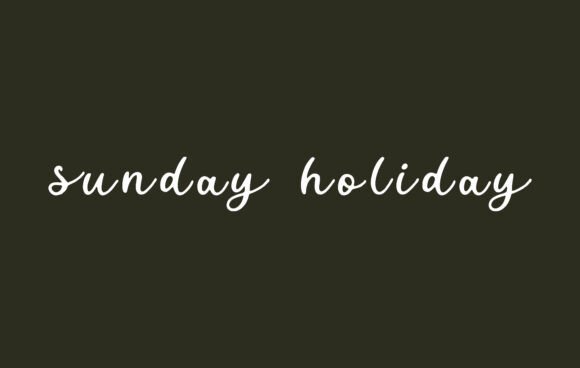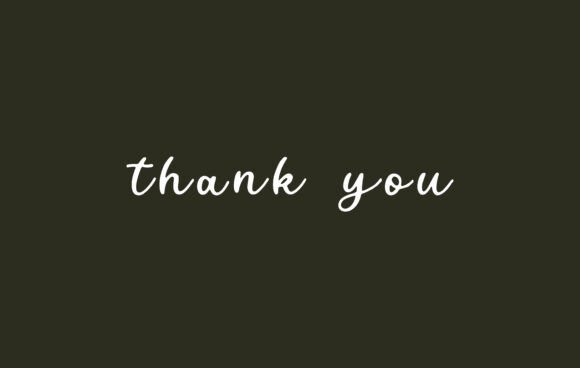
Introduction to Oysters Rockefeller Font
Have you ever stared at a blank page, feeling like your creative project is missing that special something? You’ve tried different combinations of colors, shapes, and fonts, but nothing seems to capture the essence of your vision. This is where the Oysters Rockefeller Font comes in – a game-changing addition to any design resource that’s sure to elevate your work.
Expertly crafted with a romantic touch, this authentic handwritten font is a true favorite among designers. Its legibility makes it perfect for both title and body text, ensuring that your message shines through with clarity and style. Whether you’re working on a magazine headline, social media campaign, or wedding invitation, the Oysters Rockefeller Font is the perfect choice for adding a touch of sophistication and elegance to your design.
Key Features of Oysters Rockefeller Font
- Unique and elegant script font with a luxurious feel
- Perfect for adding a touch of sophistication to invitations, menus, and other design elements
Honest Review: Oysters Rockefeller Font
I recently had the chance to work with the Oysters Rockefeller Font for a creative project and I must say it’s been a mixed bag for me. On the one hand, this font has been a game-changer for my design resource collection. The elegant script and classic feel ✨ have been perfect for adding a touch of sophistication to my designs.
- High quality design that looks great on both desktop and web applications
- Transparent background, making it easy to customize and combine with other design elements
However, there are a few limitations that I’ve encountered:
- Only available in a few font weights, which can limit its versatility in certain designs ⚠️
- Not suitable for modern or minimalist designs, as it can come across as too ornate
Overall, I’d give the Oysters Rockefeller Font 4 out of 5 stars. While it’s not perfect, it’s a solid addition to any designer’s toolkit and can be a great choice for the right creative project.
Common Use Cases for Oysters Rockefeller Font
Oysters Rockefeller Font is suitable for:
- Formal event promotions.
- High-end branding and marketing materials.